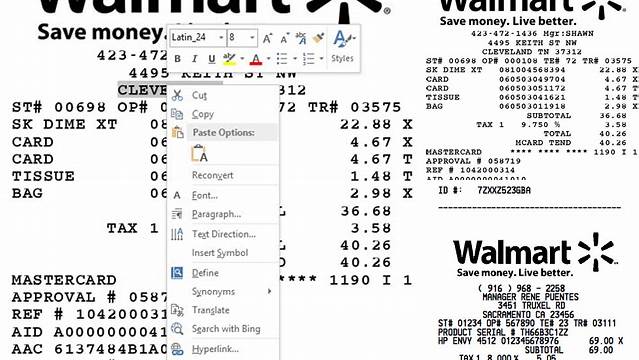
Hey everyone! Are you on the hunt for the Walmart receipt font to jazz up your projects or maybe you're just curious about the typeface used? Well, you've come to the right place! This article is all about getting you set up with the Walmart receipt font in PDF format for free. We'll dive into the font itself, its uses, and how you can download it hassle-free. So, grab a seat, and let's get started on this font adventure.
Unveiling the Walmart Receipt Font
Alright guys, first things first, let's talk about the star of the show: the Walmart receipt font. This font isn't just any ordinary typeface; it's specifically designed for receipts, meaning it's all about clarity and efficiency. Think of it like the trusty sidekick that ensures every detail on your receipt is perfectly readable. The font typically used is a variation of a monospace font, which means each character takes up the same amount of horizontal space. This is super important for aligning numbers and text neatly, especially when dealing with financial transactions. While the exact name of the font might not always be explicitly stated, it's characterized by its clean, no-frills design. This ensures that every item, price, and total is easy to spot at a glance.
The primary purpose of this font is to provide a clear, concise, and readable format for all the information on a receipt. When you look closely, you'll notice that the characters are typically uniform in size, with a straightforward style that minimizes any potential confusion. This is particularly crucial in a fast-paced environment like a Walmart store, where customers and cashiers alike need to quickly understand the details of a purchase. The font’s design contributes to efficiency, allowing for easy scanning and processing of information, whether it's for returns, record-keeping, or simply verifying a purchase. It's all about function – getting the information across as clearly as possible. The fonts often used are optimized for printing on thermal paper, the type commonly used for receipts. This means they're designed to print well with limited ink or toner and to maintain their legibility even when the receipt is handled or stored for extended periods. So, when you see the Walmart receipt font in action, you're witnessing a well-thought-out design that prioritizes usability. It's an unsung hero in the world of typography, working hard to keep the shopping experience smooth and organized. It makes sure that every number, letter, and symbol is crystal clear and easy to understand. This is a very important part of a customer's shopping journey. Without clear fonts, it would be hard to shop and easy to make mistakes.
Diving into the Specifics of the Walmart Receipt Font
Let's get into some specifics, shall we? The Walmart receipt font is not just one single, static font; instead, it's a family of fonts, often a version of monospace. This means that each character in the font, whether it's a number, a letter, or a symbol, takes up the same amount of horizontal space. This is crucial for aligning information neatly on receipts, ensuring that everything is easy to read and understand. The exact name of the font might not be something you'll find printed on the receipt, but the style is very distinct. It's designed for functionality, so the priority is readability. You'll notice the characters are usually uniform in size, with a straightforward design. This eliminates any confusion that might arise from fancier fonts, ensuring that every detail – from the item descriptions to the final total – is clear at a glance.
The use of a monospace font also helps with printing efficiency. Since each character occupies the same width, the printer can easily calculate how much space each line will take up, making it simple to format the receipt correctly. This is important for the thermal printers used in Walmart stores, as they need to print quickly and accurately. The font is optimized to work well on thermal paper, which is designed to react to heat and create an image. This means the font is created to print clearly with minimal ink or toner, and it's designed to remain legible even when the receipt is handled, folded, or stored. This level of attention to detail ensures that the receipt remains a reliable source of information. So, when you're looking at the Walmart receipt font, you're seeing a design choice that's all about usability. It's the unsung hero of the shopping experience, making sure that every transaction is clear and easy to understand. It's not flashy, but it gets the job done, making it an essential part of the shopping process. It is designed for the sole purpose of communicating the information in a simple format.
Where to Find the Walmart Receipt Font PDF